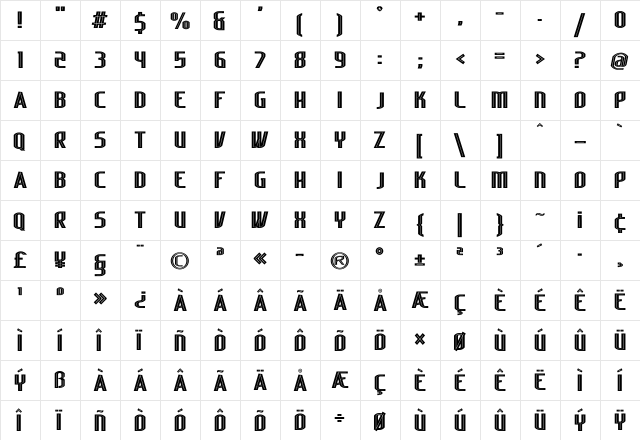
Lakisa Stencil
| Style | Stencil |
| Foundry | Audry Kitoko Makelele |
| Designer | Audry Kitoko Makelele |
Design Context for Lakisa Typeface
Lakisa borrows the utilitarian aesthetic of stencil lettering, with its characteristic cutaways and no-frills construction lending an industrial edge.
A strong choice for packaging that needs edge, warehouse aesthetics, and rough-and-ready visual identities.
Pro Tip: Use Lakisa at large sizes on packaging, posters, or apparel where the stencil cutaways read clearly. Avoid small sizes where those gaps become visual noise.